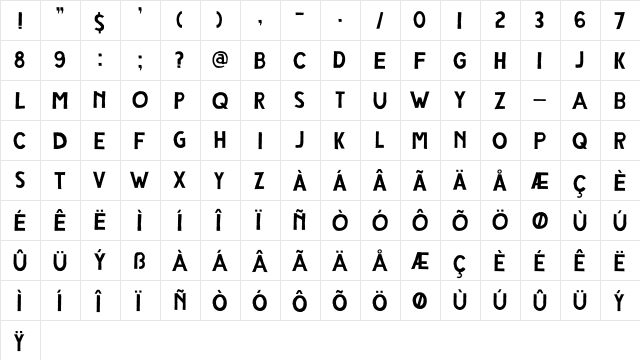
DK Compagnon Regular
| Foundry | David Kerkhoff |
| Designer | David Kerkhoff |
Design Context for DK Compagnon Typeface
DK Compagnon offers clean, dependable letterforms without strong stylistic allegiance, making it a practical choice for designers who need flexibility.
Pro Tip: Pair DK Compagnon with a font of contrasting weight or personality to build a more expressive typographic hierarchy.